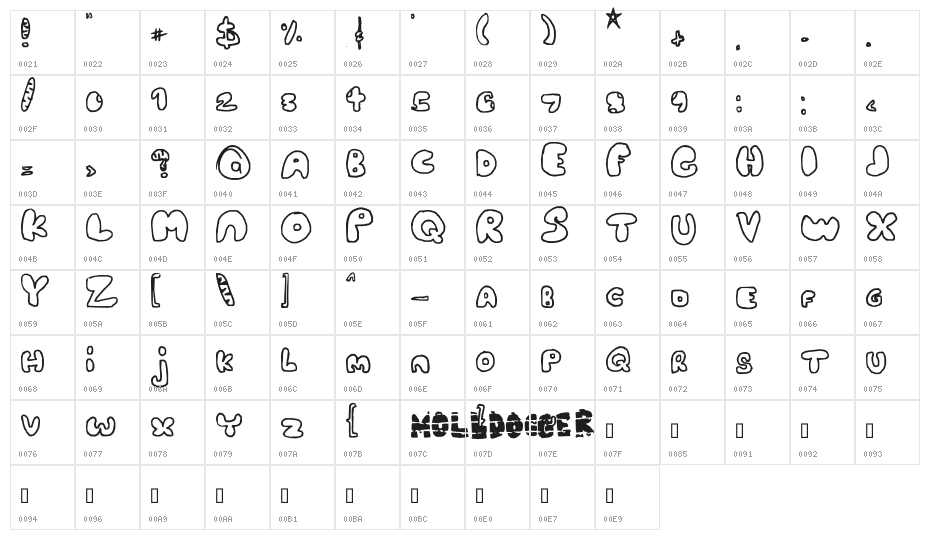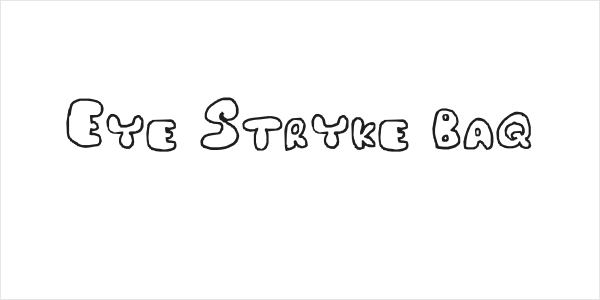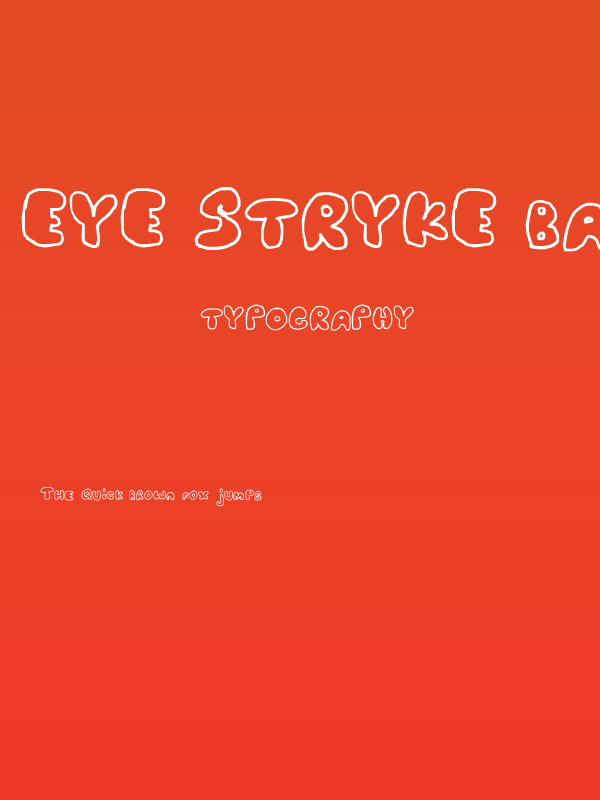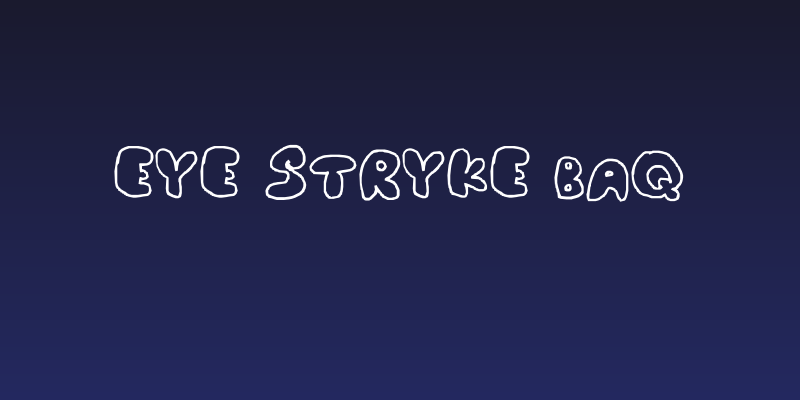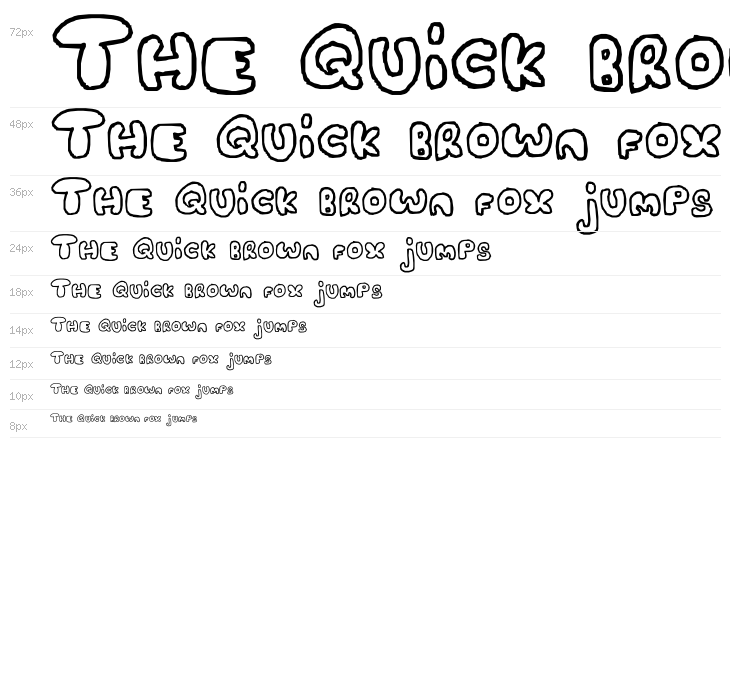
Eye Stryke Baq Font
Eye Stryke Baq Description
This playful and bold font features a hand-drawn, bubble-like style with rounded edges and a whimsical appearance. The characters are thick and have a cartoonish quality, making them stand out with a fun and informal vibe. The uppercase and lowercase letters maintain a consistent style, with slight variations that add to the font's charm. Numbers and special characters follow the same design, ensuring a cohesive look across all elements. The font's unique style is perfect for projects that require a touch of creativity and lightheartedness.
| Proposed Projects | Ideal for children's books, comic strips, playful branding, and party invitations. |